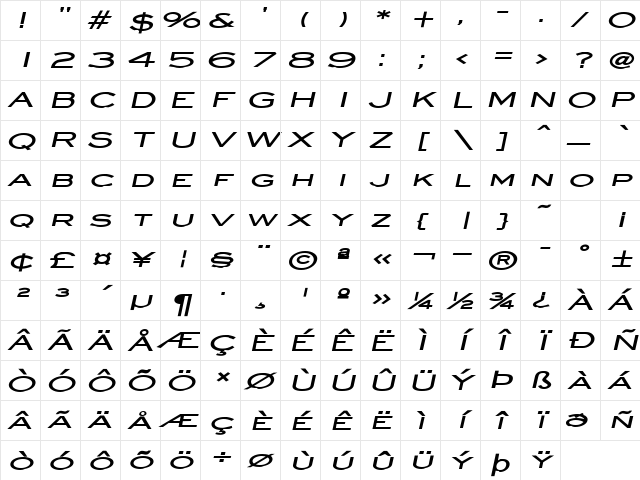
Eye glass Extended Bold Italic
Eye glass Extended Family
Eye glass Extended Bold Italic
Design Context for Eye glass Extended
Eye glass Extended is a composed and adaptable typeface that performs quietly and consistently across a wide range of design contexts. The slanted form adds forward momentum and visual energy. Its bold stroke weight gives it real presence on the page.
Pro Tip: Use Eye glass Extended for emphasis, pull quotes, and subheadings where its slanted energy can add rhythm to the layout.